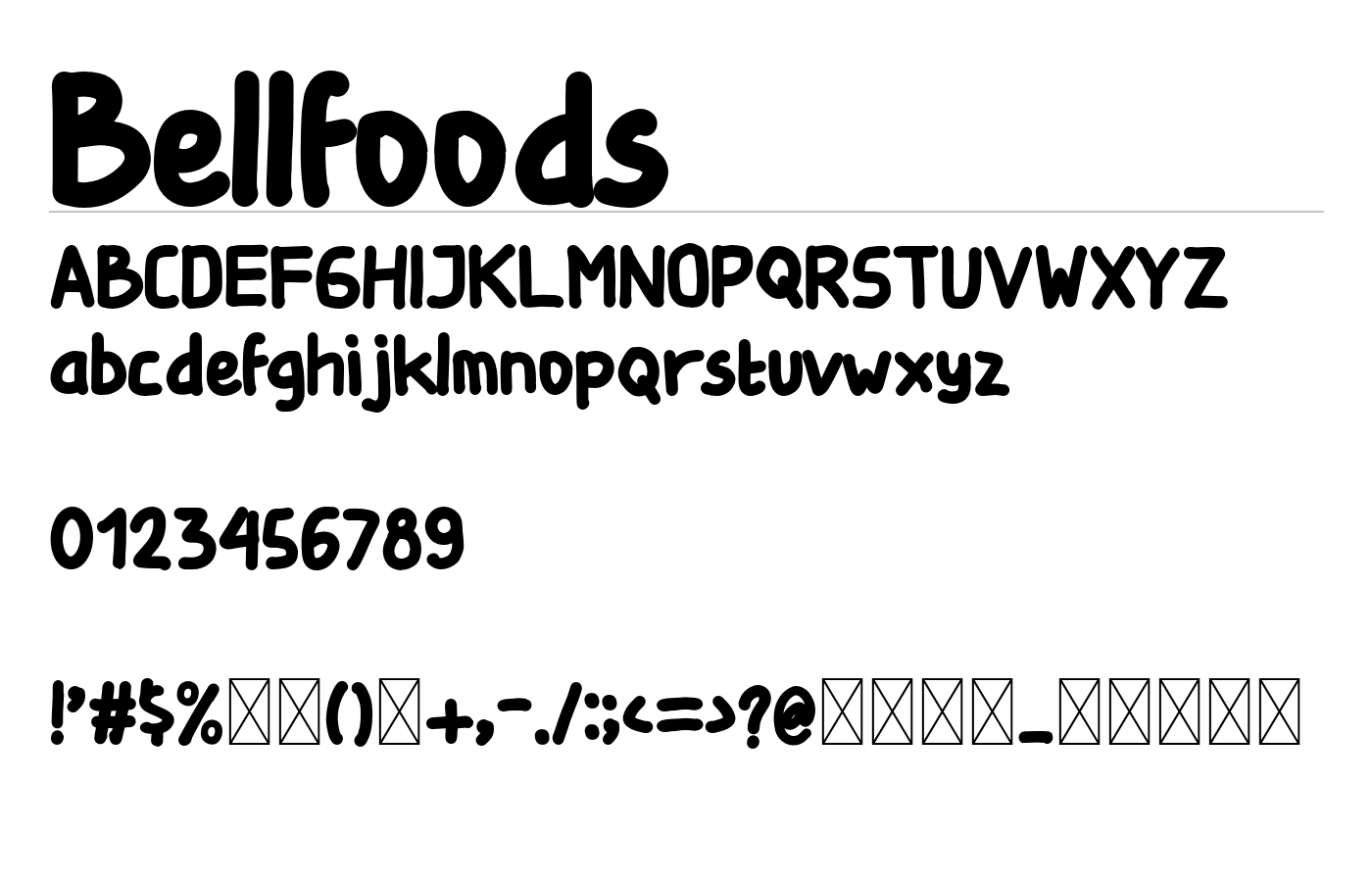
Bellfoods is a playful sans-serif font with rounded, slightly irregular letterforms that give it a friendly, hand-drawn feel. Its bold weight and warm curves make it perfect for casual branding, children’s products, packaging, and informal headlines where a welcoming and approachable tone is desired. This font works well in designs that aim to convey creativity and fun without sacrificing readability.
Bellfoods Font
About Bellfoods Font
| Font family | Bellfoods Font |
| Designer | Mohamad Rois Ngainul Yakin & Muhammad Bagus P |